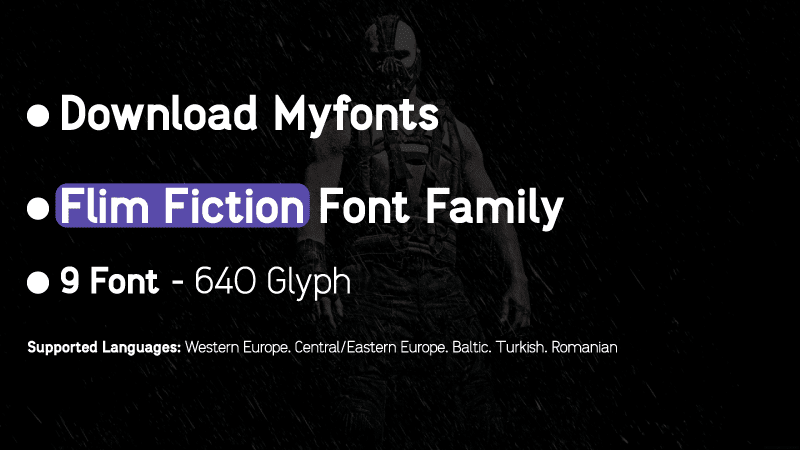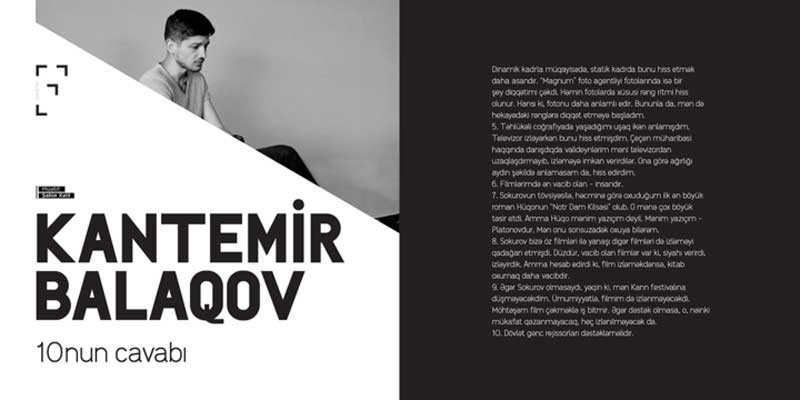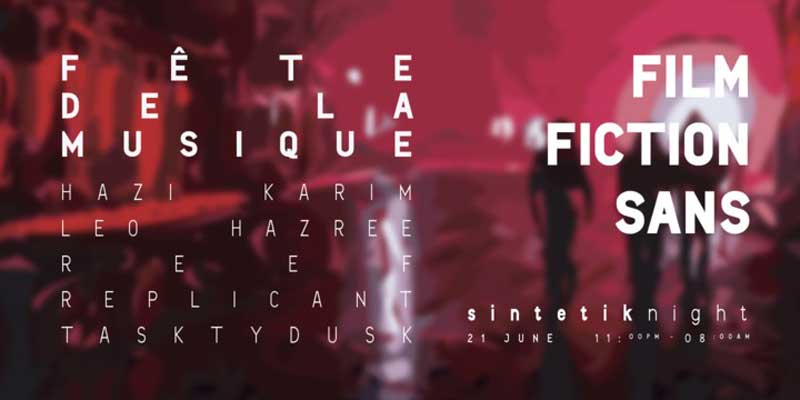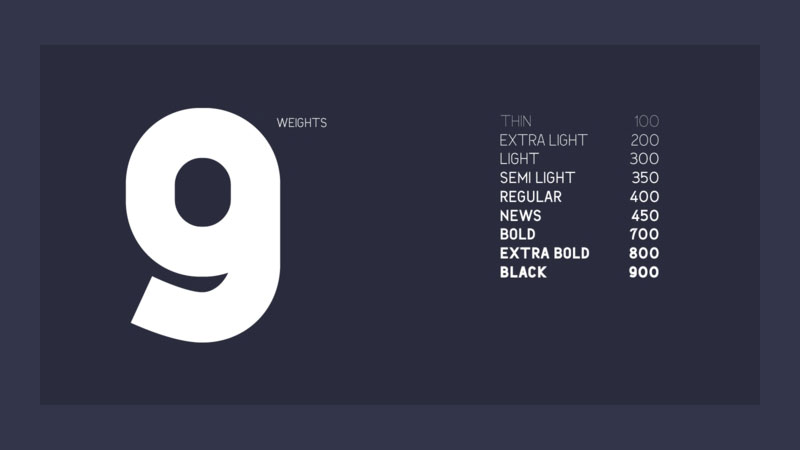
Film Fiction Sans Font Family
Gives your designs a modern look by Film Fiction Sans Font Family. It’s Comfortable with branding, magazines, films, web, logos, badge, t-shirt/apparel, posters, packaging and any kind of modern design. It Gives your design Premium feel and more gorgeous.
About Film Fiction Sans
It comes within 9 variant styles with 640 Glyphs each. Language support for Western Europe, Romanian, Baltic, Turkish, Central/Eastern Europe. Designed By: Tural Aliyev,  Publisher: Tural Alisoy,  MyFonts debut: Dec 27, 2019